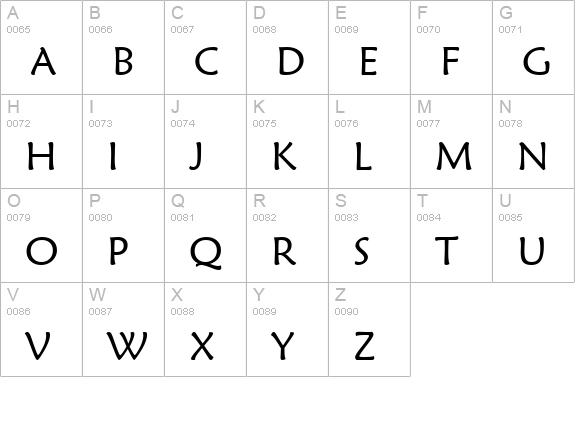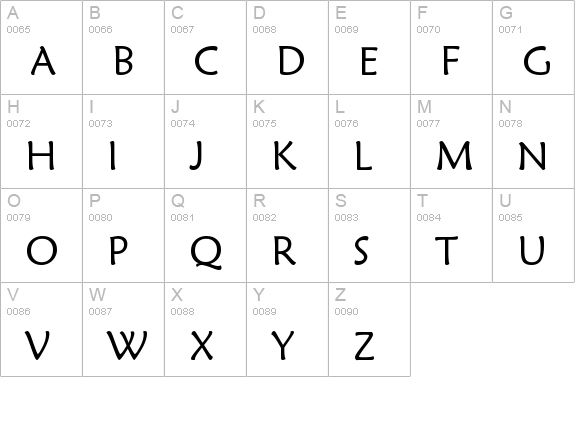
Maiandra GD font is a stunning and elegant typeface that exudes sophistication and grace. With its smooth curves and clean lines, this font is perfect for adding a touch of class to any design project. Whether you're creating a logo, designing a website, or crafting a professional presentation, Maiandra GD will elevate your work to new heights. What sets Maiandra GD font apart is its versatility. It can be used for both headings and body text, making it a truly versatile choice for various design applications. The letters are carefully crafted, ensuring legibility and readability even at smaller sizes. One of the best features of Maiandra GD font is that it is free. Yes, you read that right - this incredible font is freely available to download at FontsMarket.com. Now you can add a touch of elegance to your projects without breaking the bank. Simply head over to FontsMarket.com and download Maiandra GD font to start using it in your designs today. Whether you're a professional designer or just starting out, Maiandra GD font is a must-have in your font collection. Its timeless beauty and effortless sophistication will make your designs stand out from the crowd. Don't miss out on this incredible opportunity to enhance your creativity and take your designs to the next level. Download Maiandra GD font for free at FontsMarket.com and let your imagination run wild.